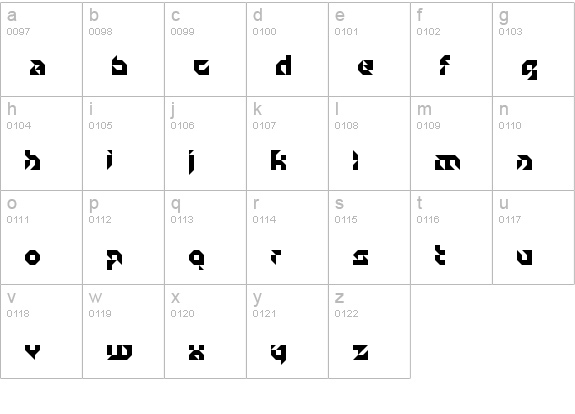
Particulator II Regular is the standard, neutral variant in the Particulator typeface family \xE2\x80\x94 well suited to general body text, paragraphs, and standard typographic work.
Particulator II Regular font is a sleek and modern typeface that exudes sophistication and elegance. With its clean lines and balanced proportions, this font is perfect for a wide range of design projects, from branding to editorial layouts. The sharp edges and distinctive letterforms of Particulator II Regular make it stand out from the crowd and give your designs a contemporary edge. What's even better is that Particulator II Regular is available for free download at FontsMarket.com. This means you can add this stylish font to your collection without breaking the bank. Whether you're a seasoned designer looking for a fresh addition to your toolkit or a novice just starting out, Particulator II Regular is sure to elevate your projects and leave a lasting impression. Download it now and unleash your creativity with this versatile and eye-catching font.